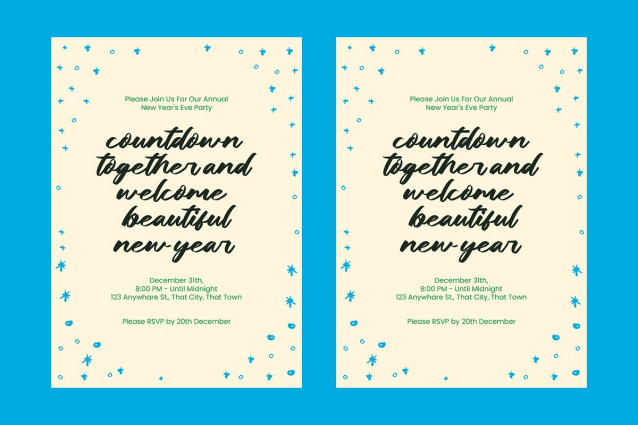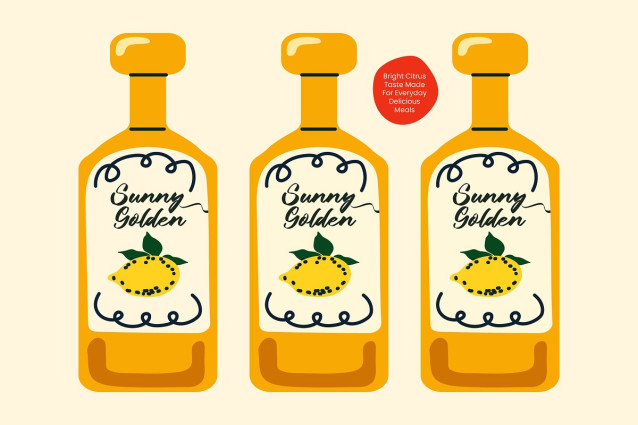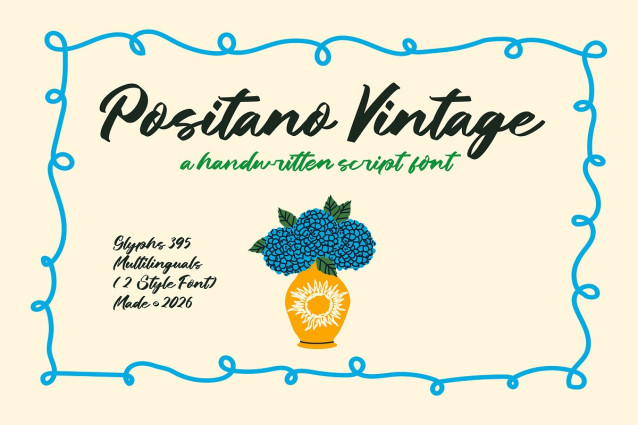
Positano Vintage Font
Positano Vintage Font is a charming handwritten script typeface inspired by classic vintage packaging, retro café signage, and nostalgic handcrafted lettering. Designed to capture the warmth of natural handwriting, this font delivers a playful yet authentic personality perfect for creative branding and lifestyle design.
With its smooth flowing strokes, soft rounded terminals, and organic rhythm, Positano Vintage evokes the character of traditional hand-painted lettering often seen in bakery labels, travel posters, and artisanal product packaging.
The font includes an extensive set of 55 ligatures and 8 stylistic alternates, allowing designers to create more natural, seamless letter connections and unique typographic compositions. These OpenType features help replicate the fluid feel of real handwritten lettering while providing flexibility for branding and display typography.
With 395 total glyphs, Positano Vintage offers a versatile character set suitable for a wide range of creative projects across both print and digital media.